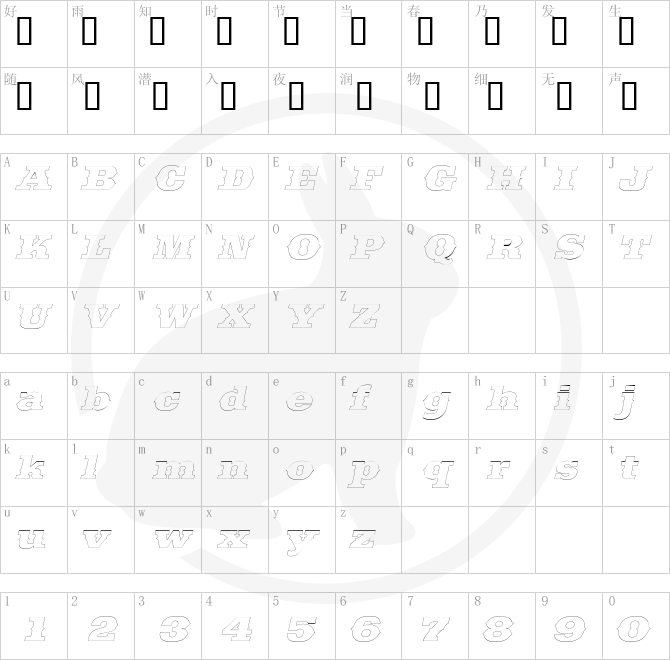
- Font Name:SaddlebagOutline
- Subfamily:SWFTE:SaddlebagOutline Italic
- Full Name:SaddlebagOutline Italic
SaddlebagOutline-Italic-1-.ttf is a very beautiful artistic font, SaddlebagOutline-Italic-1-.ttf is widely used in the design and printing of various books and pictures,SaddlebagOutline-Italic-1-.ttf has a strong visual impact,SaddlebagOutline-Italic-1-.ttf is a commonly used font in newspapers, magazines and books, and is used in posters, e-commerce Poster design, store design, logo design, font design and other fields.SaddlebagOutline-Italic-1-.